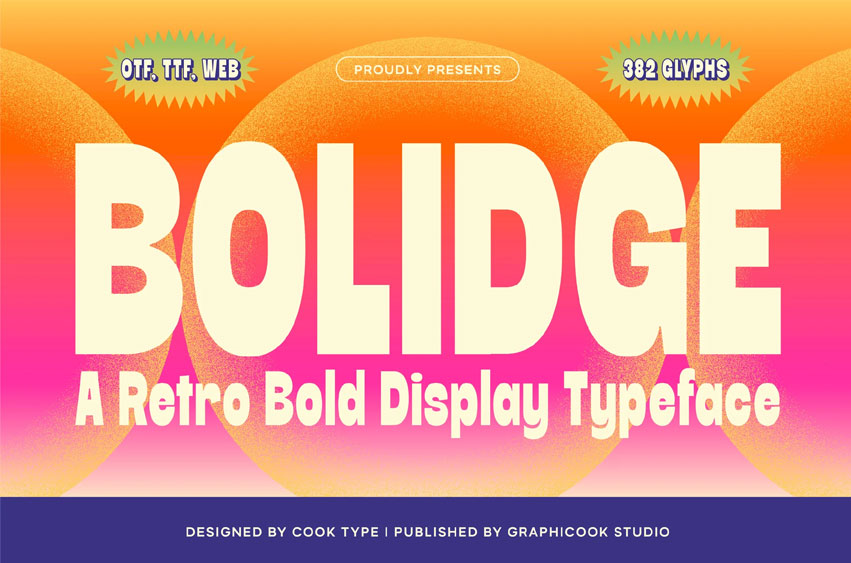
Bolidge Font is a bold display font infused with vintage charm, creating a striking and nostalgic look. Ideal for headlines, billboard banners, packaging, or any design that demands bold visual impact.
It is perfect for headlines, logotypes, magazines, packaging, quotes, movies, games, cover albums, book covers, and flyers. It’s a perfect solution for creating eye-catching designs that stand out in any context.